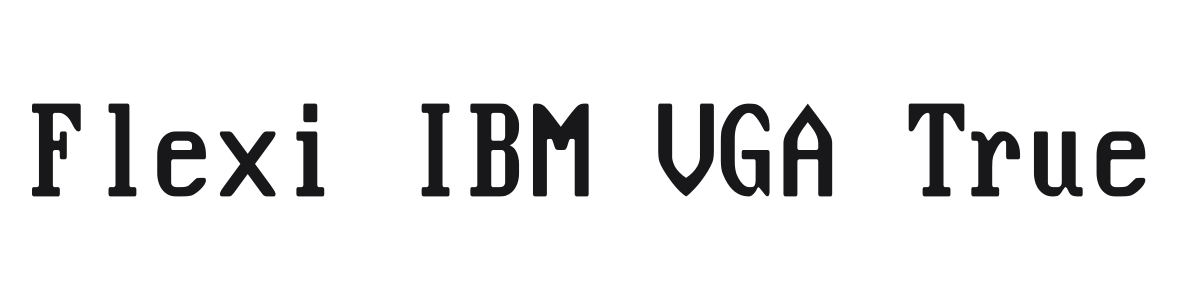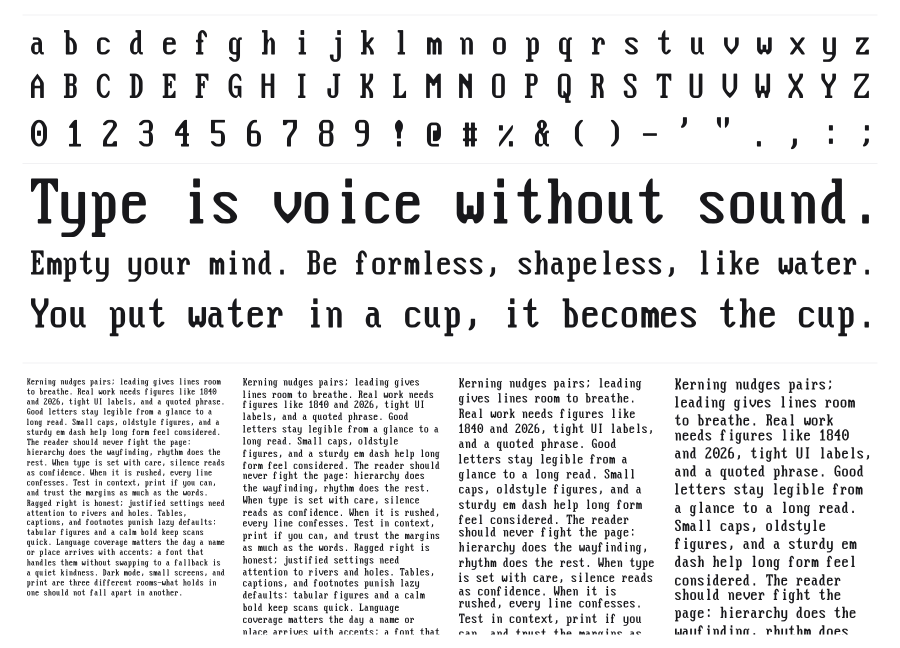
Flexi IBM VGA True
Flexi IBM VGA True is a TrueType revival of the classic IBM VGA character set, manually traced from the original 8x16 pixel bitmaps and aspect-corrected to match text as it appeared on a 4:3 CRT monitor. The result is a bold, chunky monospace with unmistakable DOS-era character: flat terminals, squared curves, and a weight that reads as both retro and commanding. It covers an extended range of scripts including Latin, Greek, Hebrew, and Cyrillic.